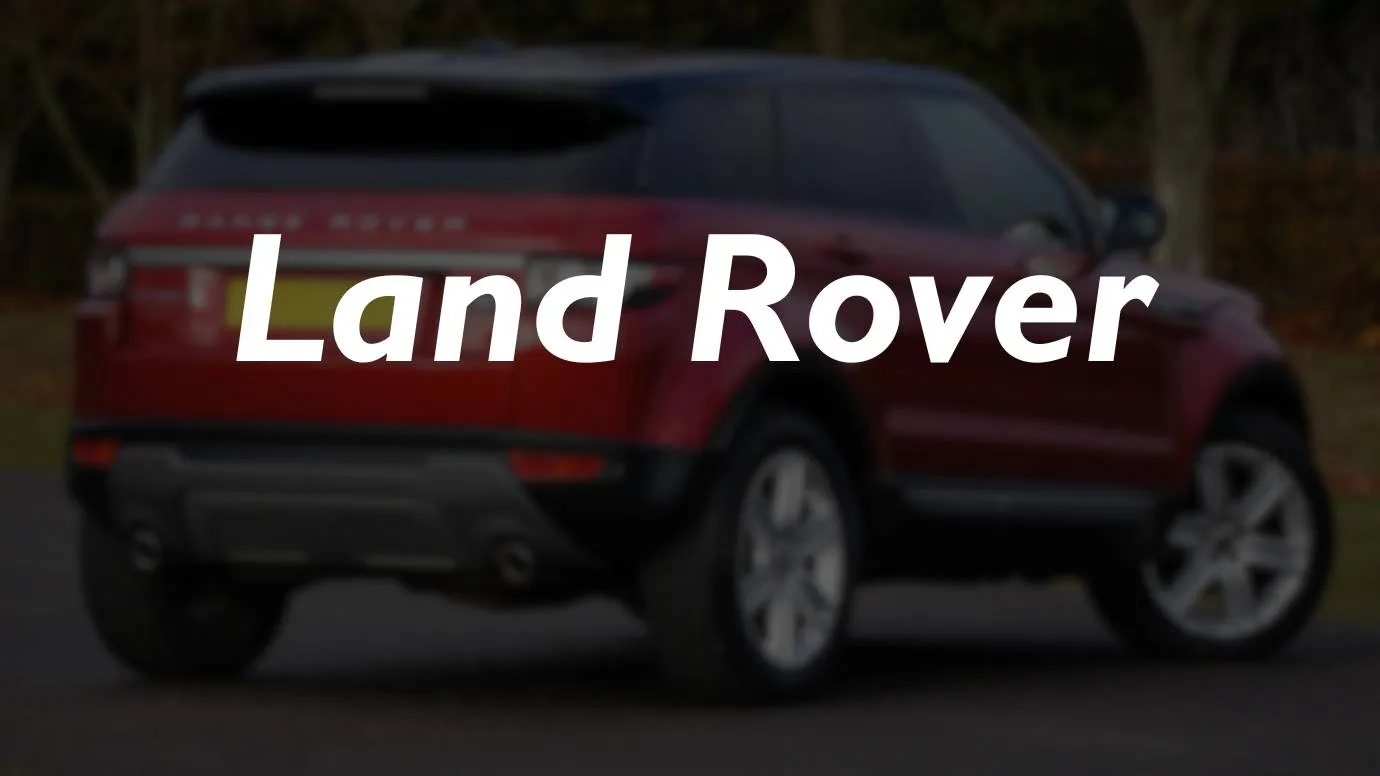
Land Rover Font family
Land Rover Font family lies in the category of the sans serif family of fonts and this typeface was mainly designed by Eric Gill. In the year 1930, this typography was finally designed for the first time. Ace sans font is similar to this classic font family.
Land Rover Font
TypeSans Serif
DesignerEric Gill